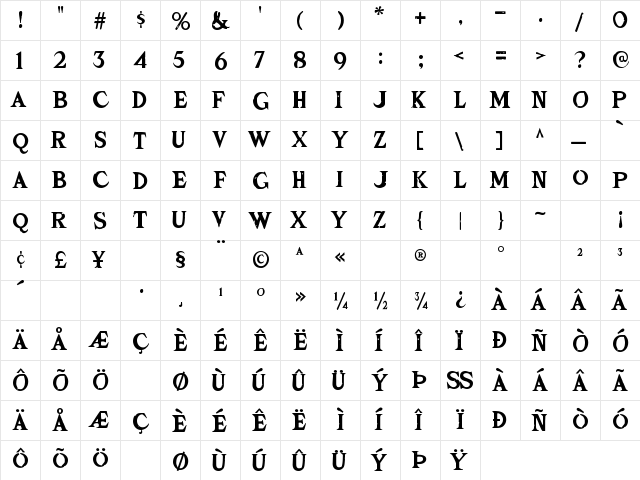
Zamora Regular
Design Context for Zamora Typeface
Zamora is a composed and adaptable typeface that performs quietly and consistently across a wide range of design contexts.